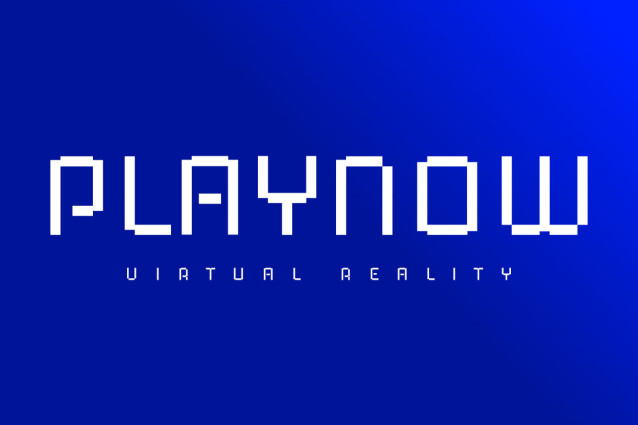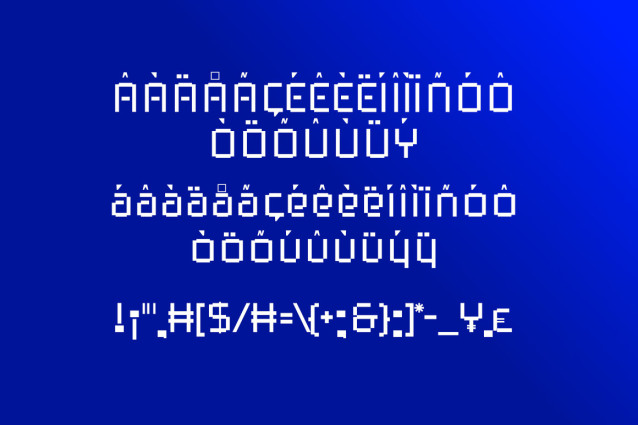
PixPixls Font
PixPixls Font is a sans-serif font that fuses the futuristic with the charm of pixel art. Its unique style is perfect for designs that explore the realms of space, techno aesthetics, gaming, and futuristic creativity. Whether you’re working on a sci-fi poster, a game interface, or pixel-inspired art, PixPixls brings a bold, modern edge to your projects.